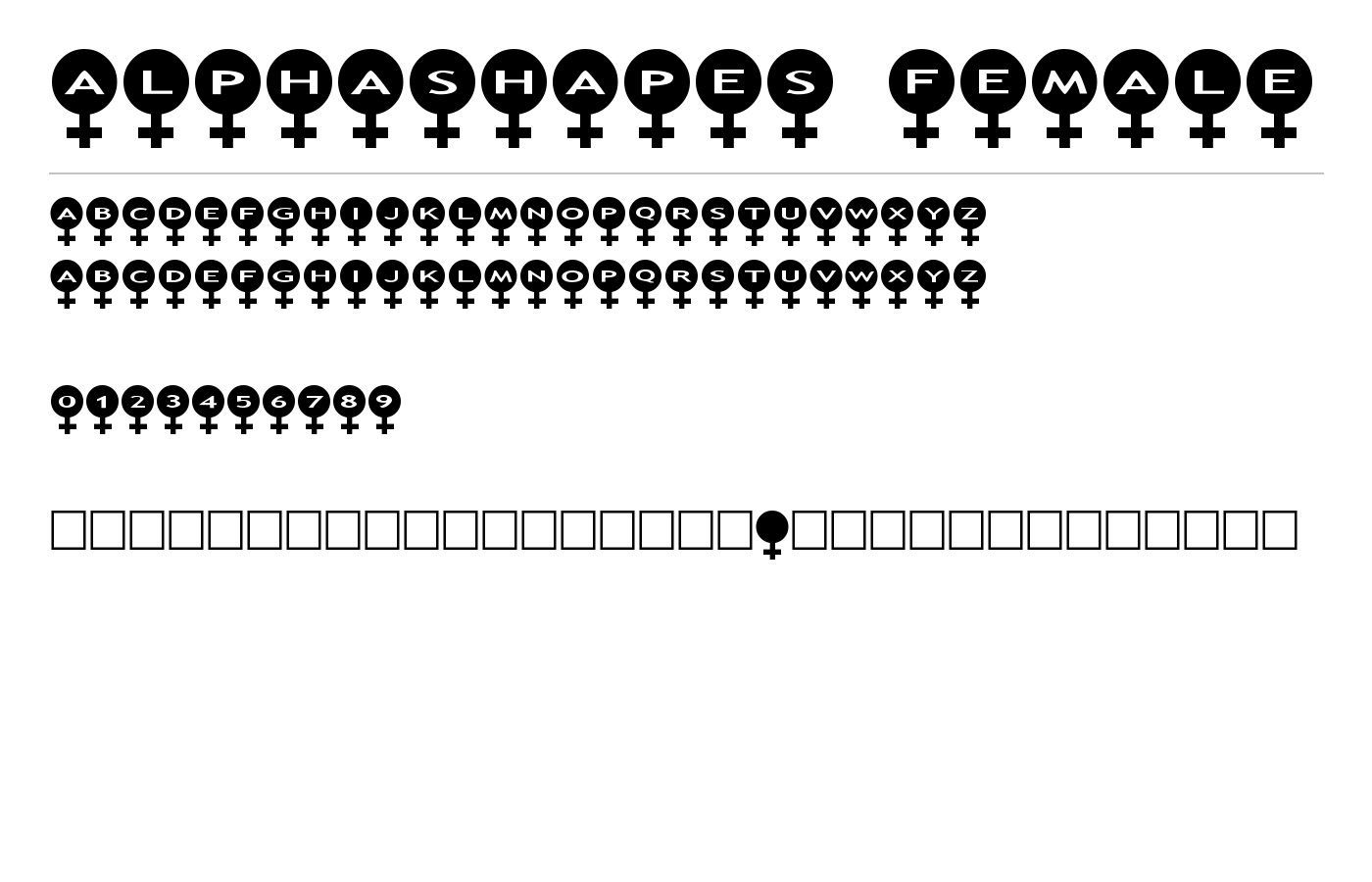
AlphaShapes Female is a bold, decorative font featuring uppercase letters enclosed in solid black circles with the female gender symbol attached below, creating a distinctive and striking look. Its playful yet strong design makes it ideal for empowering, feminist-themed branding, logos, posters, and headlines where a unique and memorable visual statement is desired. This font’s geometric shapes and symbolic elements communicate modernity and confidence, perfect for emphasizing female identity and strength.
AlphaShapes female Font